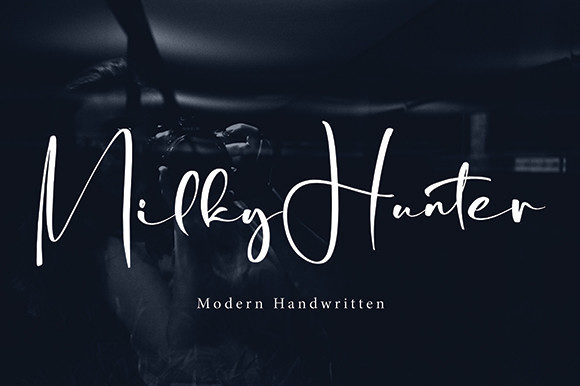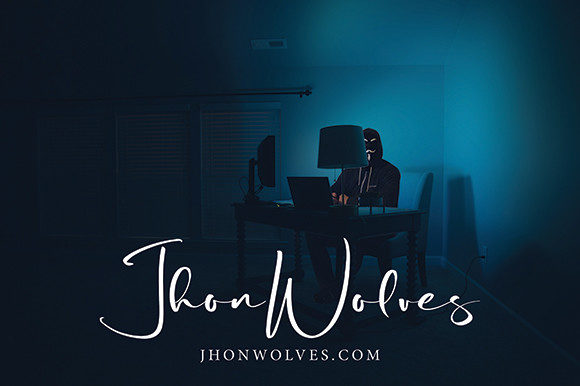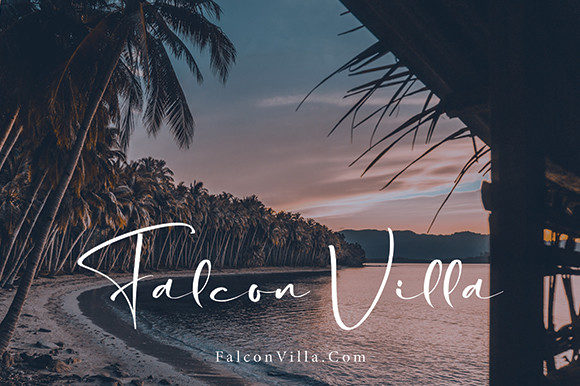
Introduction to Milky Hunter Font
Milky Hunter is a relaxed and stylish script font that exudes elegance and class.
👤 Author Pineungtype & Missinklab
This font was particularly crafted for those who need a beautiful and refreshing look to their designs .
Why Choose Milky Hunter Font?
Milky Hunter Font offers exceptional quality and versatility, making it a valuable addition to your design toolkit. Whether you’re creating for personal projects or commercial use, Milky Hunter Font delivers professional results.